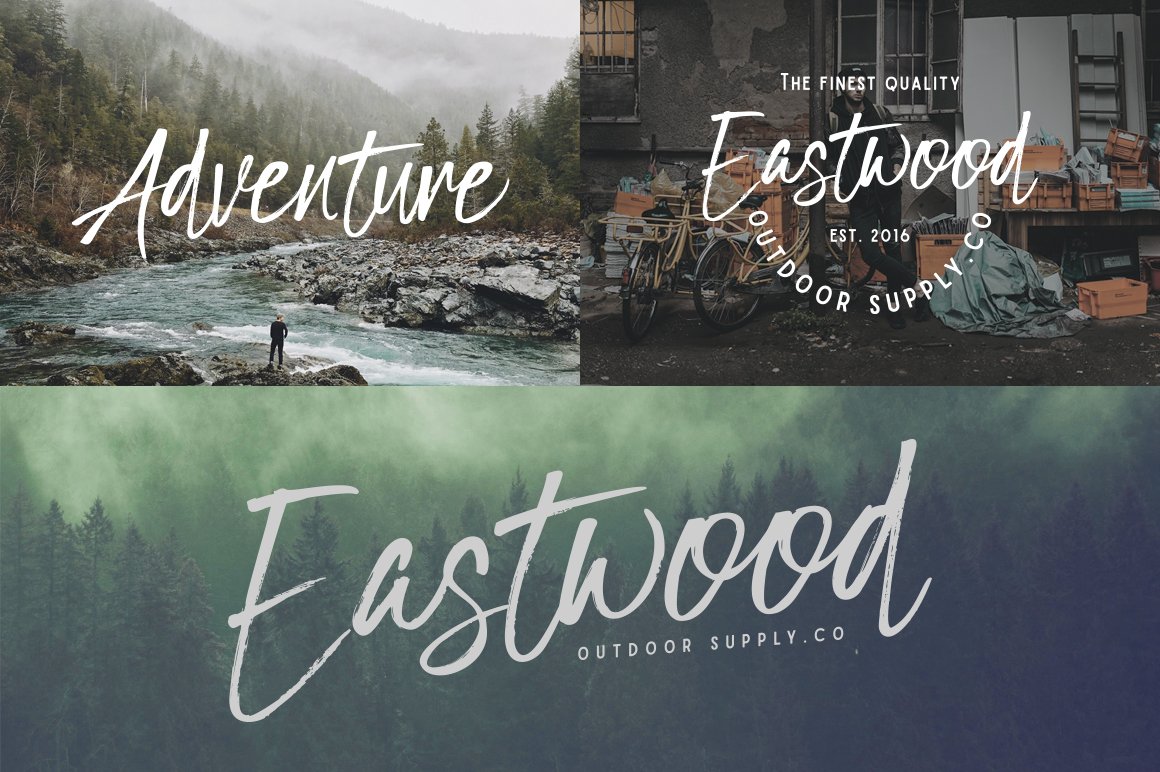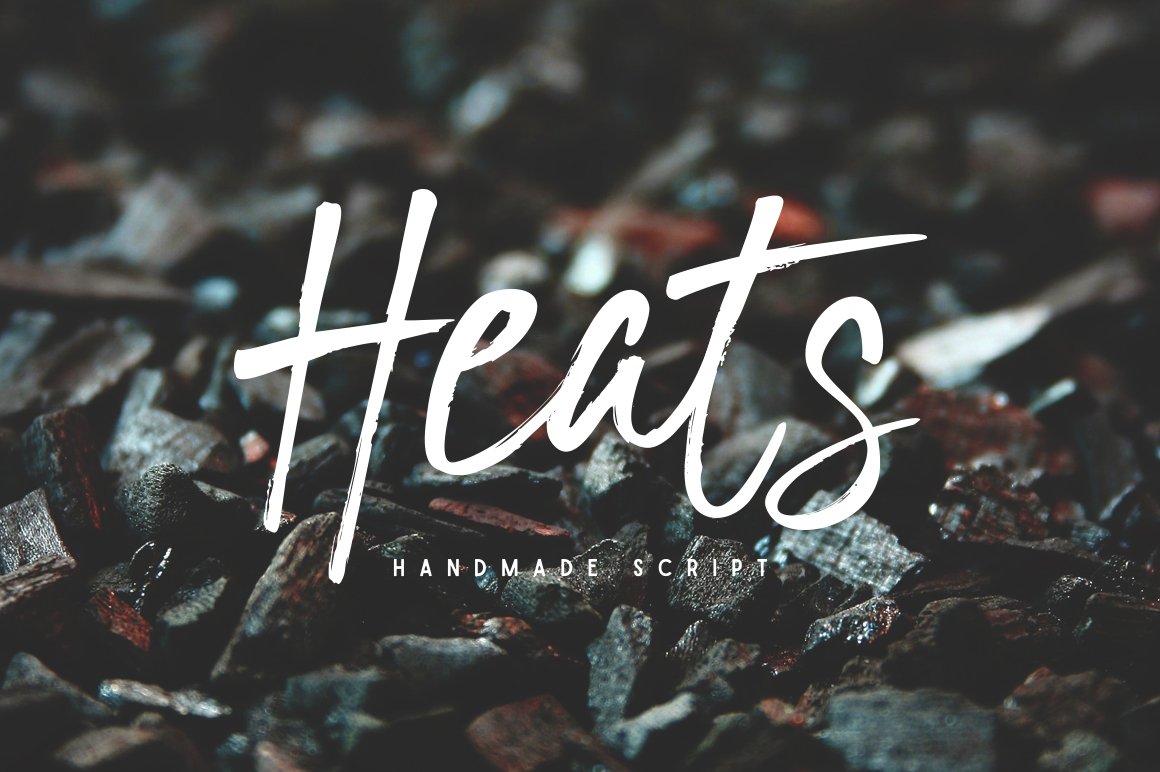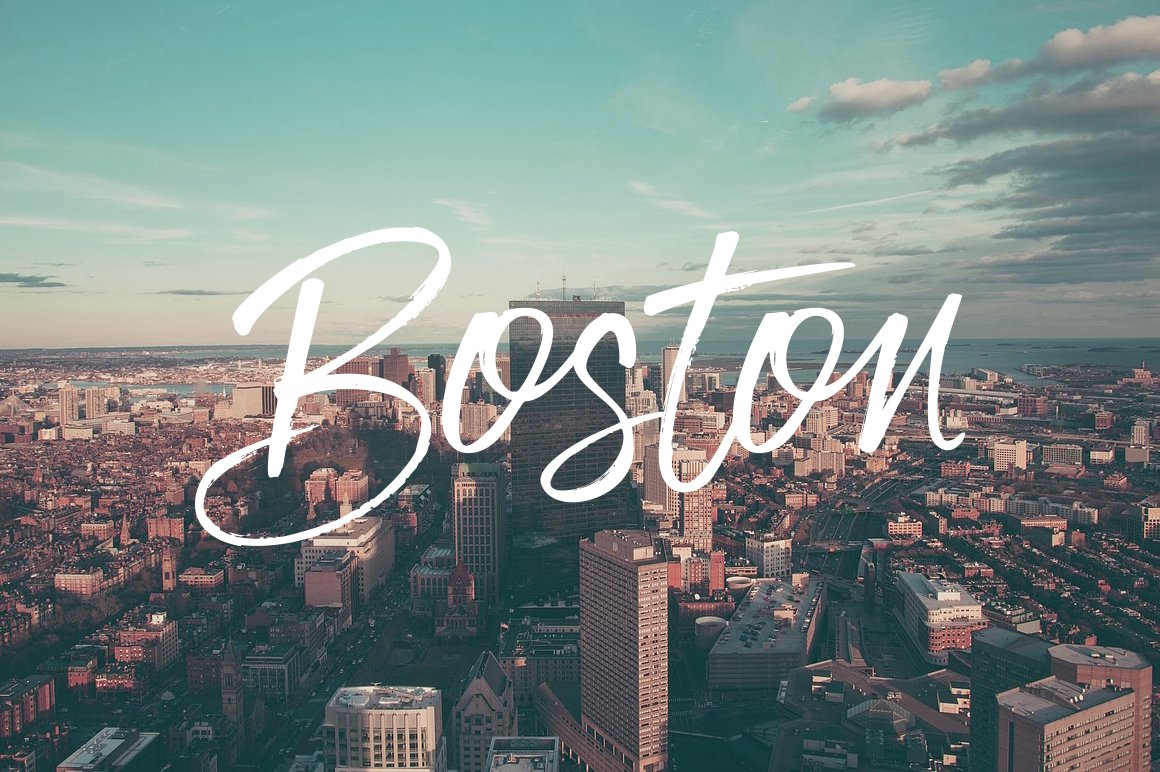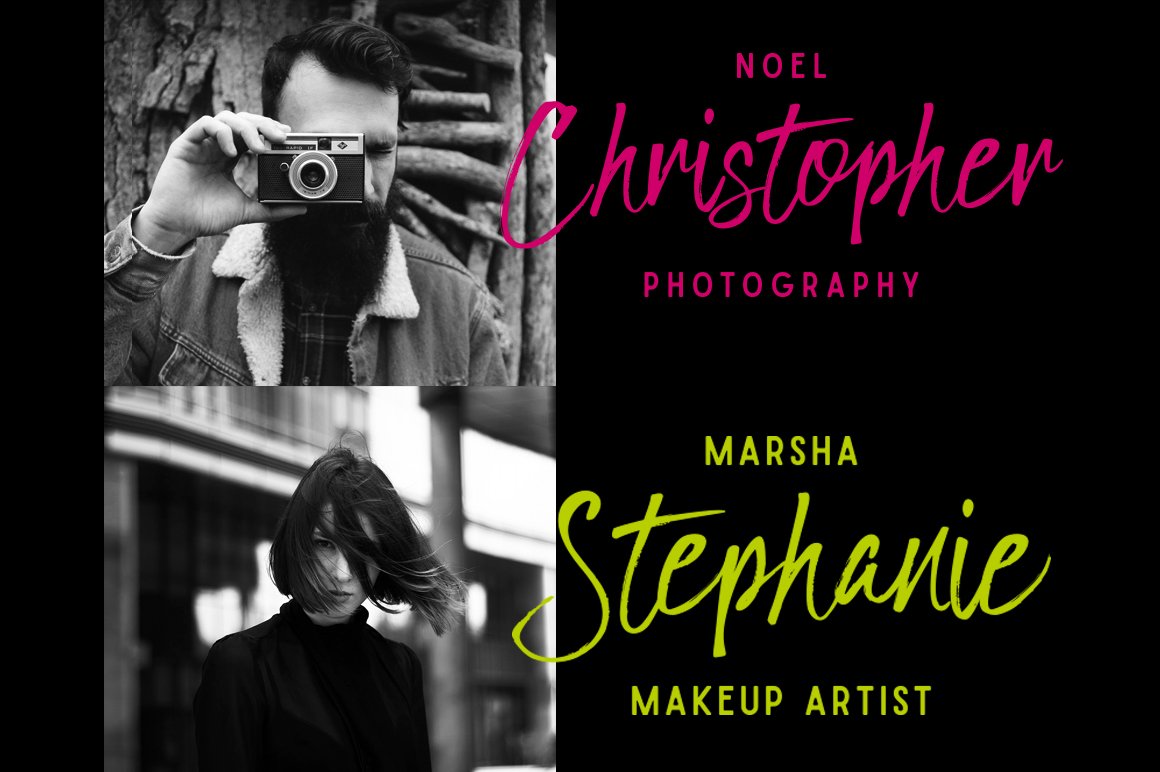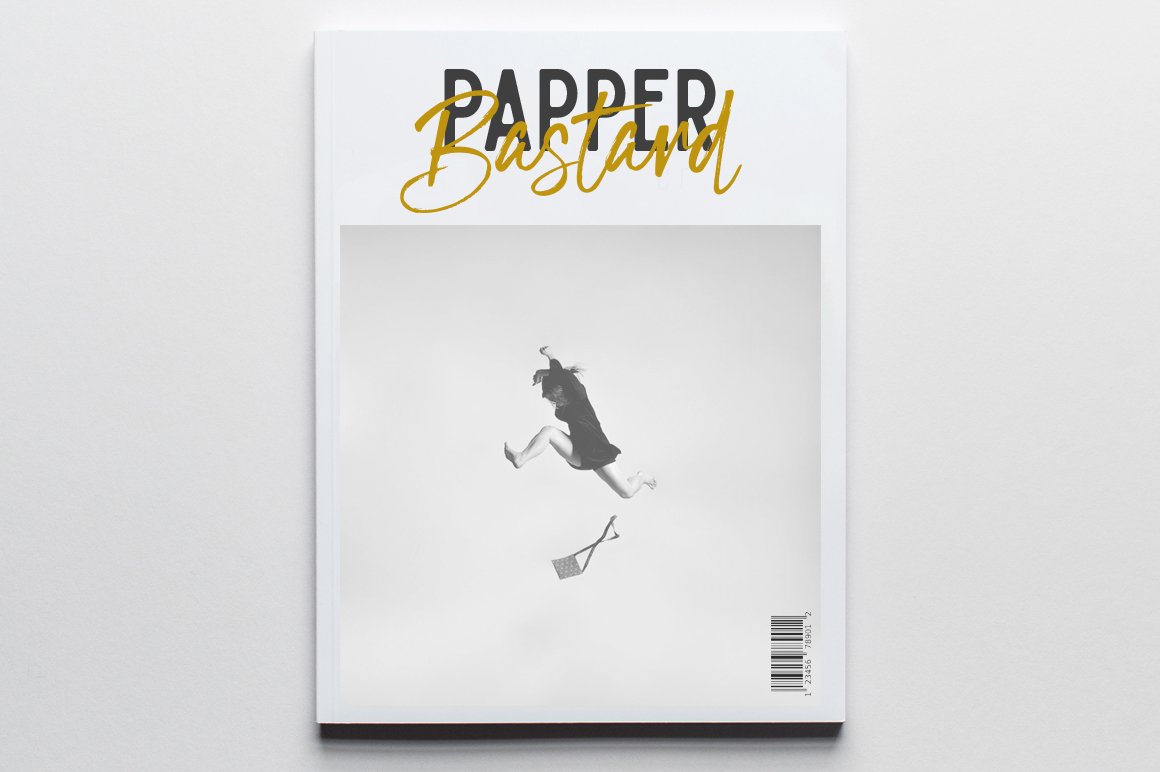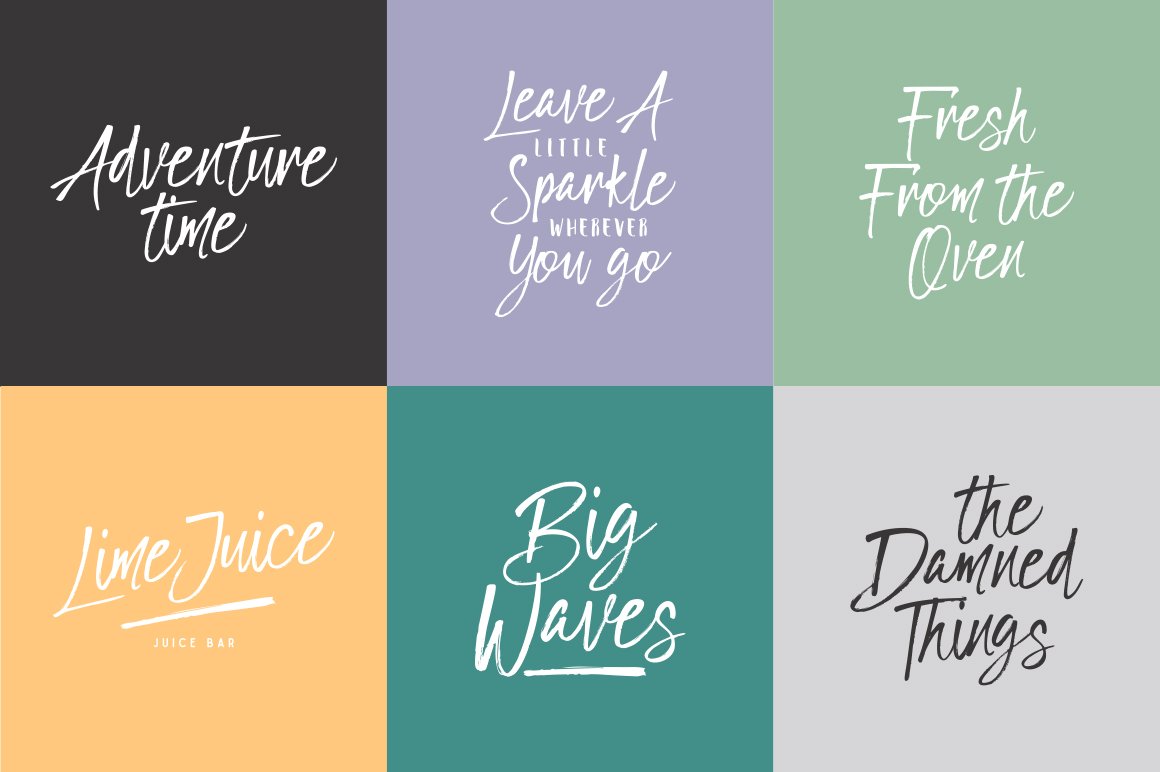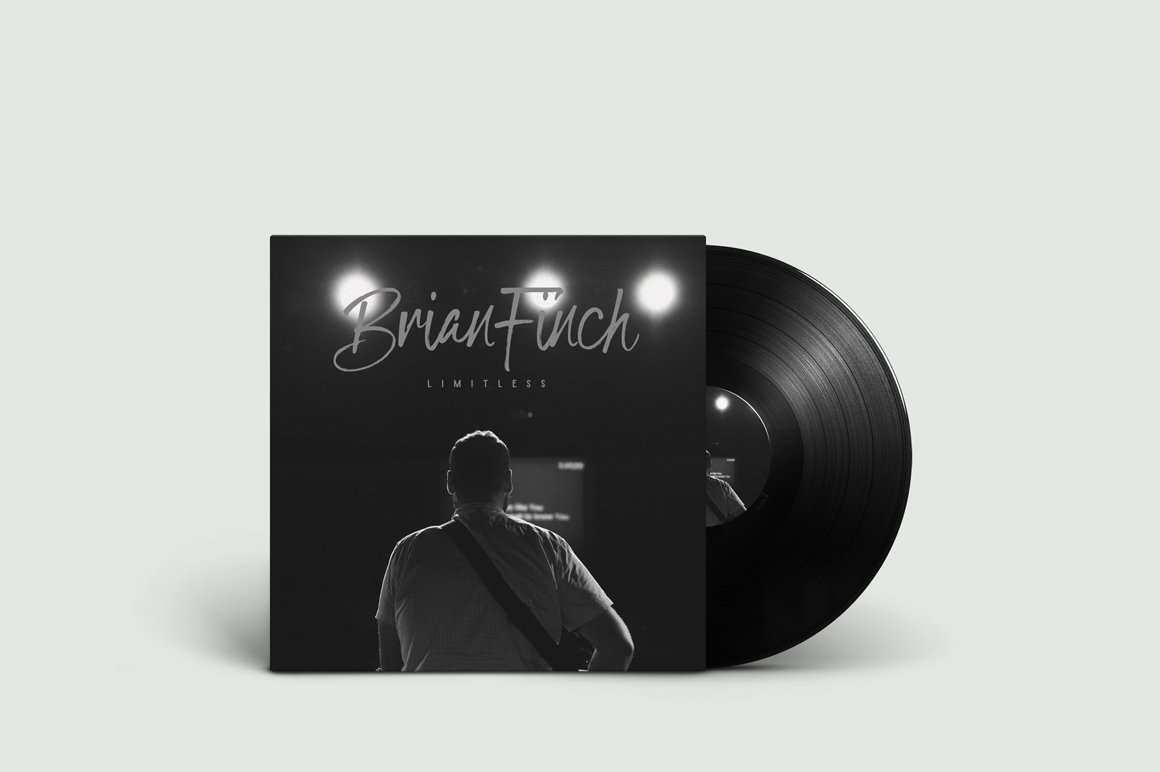
Heats
Introducing Heats, a hand brushed script with cool character! Heats perfect for branding, advertising, poster design, book covers, magazines, greeting cards, merchandise, fashion campaigns, newsletters, album covers, and quote designs and more.
Heats comes with uppercase, lowercase standard character, punctuation and multilingual language support.